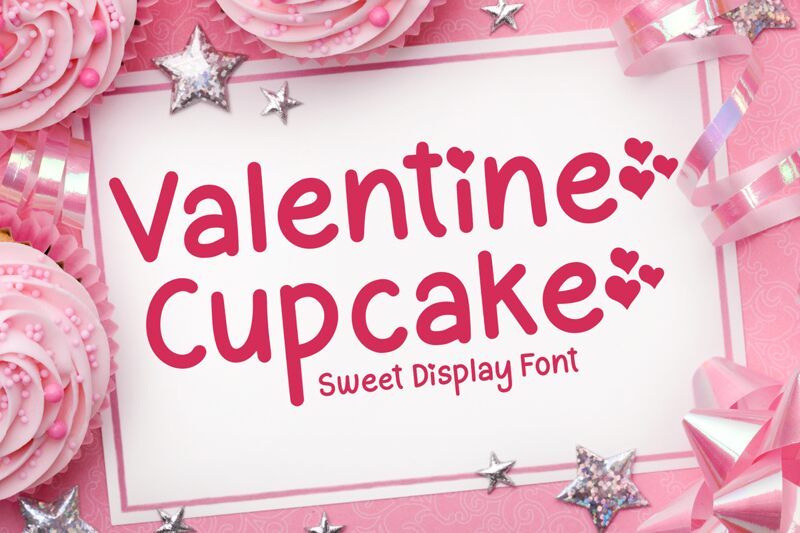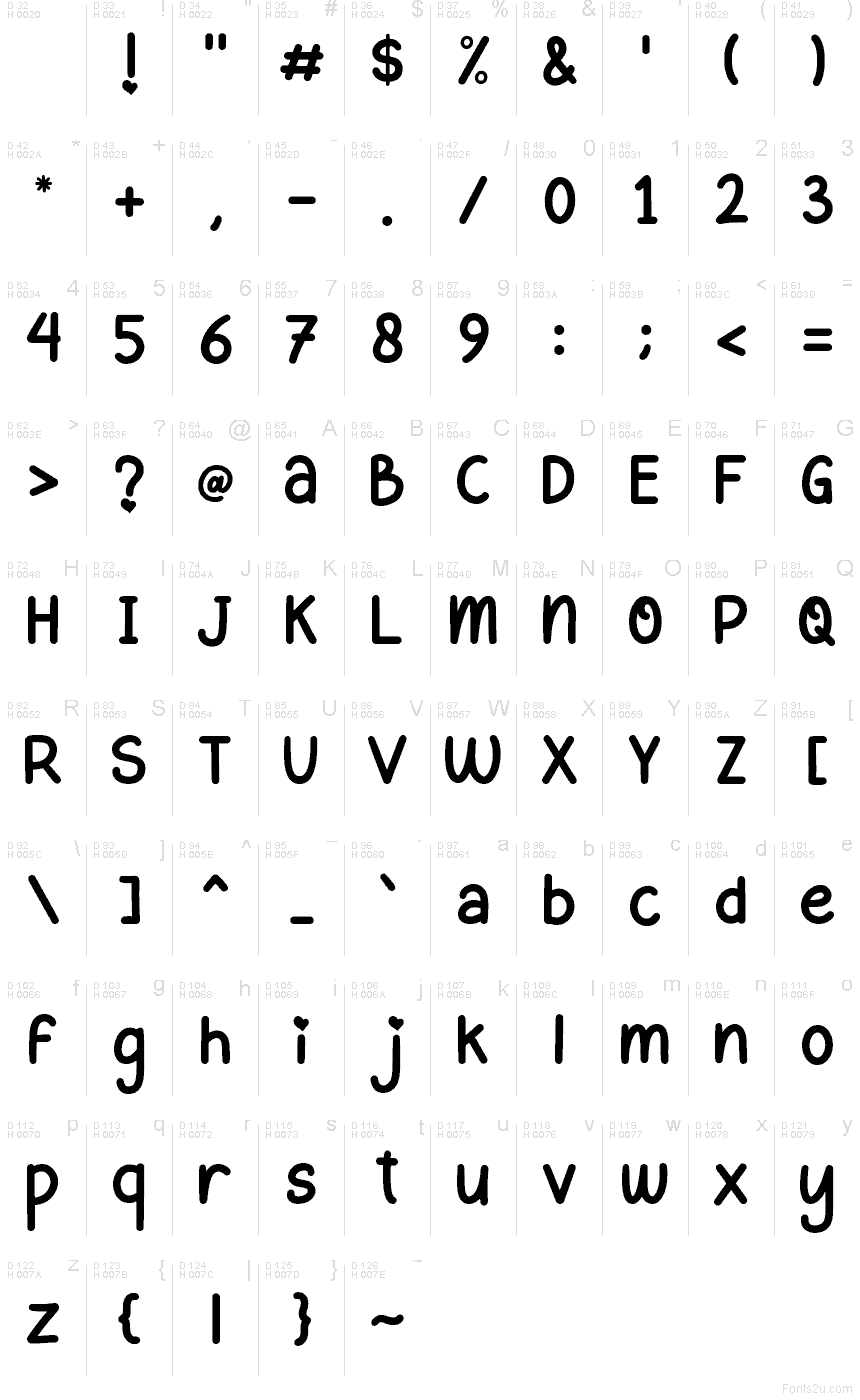
Valentine Cupcake
Valentine Cupcake font by AEN Creative Studio is a free Valentine holiday handwriting font. Its rounded, slightly bouncy letters and chunky strokes feel like they’ve been piped on with frosting, while the tiny heart details add a sweet, handmade touch. The spacing is friendly and open, so even bold headlines keep that soft, huggable look rather than feeling heavy or crowded.
Using Valentine Cupcake, you can give instant charm to Valentine cards, party invitations, classroom worksheets, gift tags, stickers, and social media graphics. This free font shines on anything that needs to feel cute, cozy, and approachable, especially for kids and families. For a balanced layout, pair Valentine Cupcake for titles with a simple sans serif typeface for small print and supporting text.